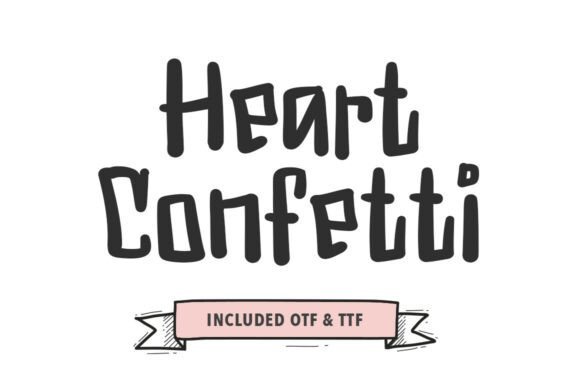
Get Ready to Party with Heart Confetti Font
Remember the rush of excitement you felt as a kid on your birthday, surrounded by confetti and loved ones? That same feeling of joy and celebration is exactly what designers aim to evoke with the Heart Confetti Font, a lively and energetic typeface designed to bring a sense of fun and playfulness to any design.
This charming font is perfect for creating eye-catching headlines, festive posters, and playful packaging that will leave a lasting impression. Whether you’re working on branding, social media content, or print merchandise, the Heart Confetti Font is the go-to choice for designers looking to inject a sense of personality and whimsy into their designs. With its bold, quirky personality, this font is sure to make your message feel confident, artistic, and unforgettable.
Key Features of Heart Confetti Font
- Unique Characteristic: Features a playful, hand-drawn design with intricate details, creating a whimsical and festive atmosphere.
Designer Review: Heart Confetti Font
I recently had the chance to work with the Heart Confetti Font, and I must say it’s a unique and playful addition to any design project. Here are my thoughts on what works well and what doesn’t.
What Works Well: ✨
- The font’s whimsical design and irregular shapes make it perfect for creating eye-catching headings and titles.
- The bold and vibrant colors used in the font make it stand out, especially when paired with pastel colors or bright backgrounds.
- The font is highly customizable, with many options for color, size, and spacing, making it easy to adapt to different design styles.
- The font’s irregular shapes can make it difficult to read in certain contexts, such as in long blocks of text or at small sizes.
- The font may not be suitable for formal or professional projects, as it has a more playful and informal feel.
- The font’s high customization options can be overwhelming, making it difficult to achieve a cohesive design.
Overall, I think the Heart Confetti Font is a fun and creative option for designers looking to add some personality to their projects. While it may have some limitations, it’s perfect for projects that require a playful and whimsical touch.
The Heart Confetti Font is perfect for:
- Birthday and anniversary invitations
- Valentine’s Day cards and decorations
- Wedding invitations and decorations
- Any design that requires a playful and festive touch
Alternatives to Heart Confetti Font for Designers
Great Vibes Font is a modern, elegant script font that is perfect for creating a playful and romantic atmosphere. It is ideal for wedding invitations, greeting cards, and other special occasion designs.
Compared to Heart Confetti Font, Great Vibes Font has a more refined and sophisticated look. While Heart Confetti Font is bolder and more whimsical, Great Vibes Font is more delicate and refined. Great Vibes Font is a better choice when you want to convey a sense of elegance and sophistication.